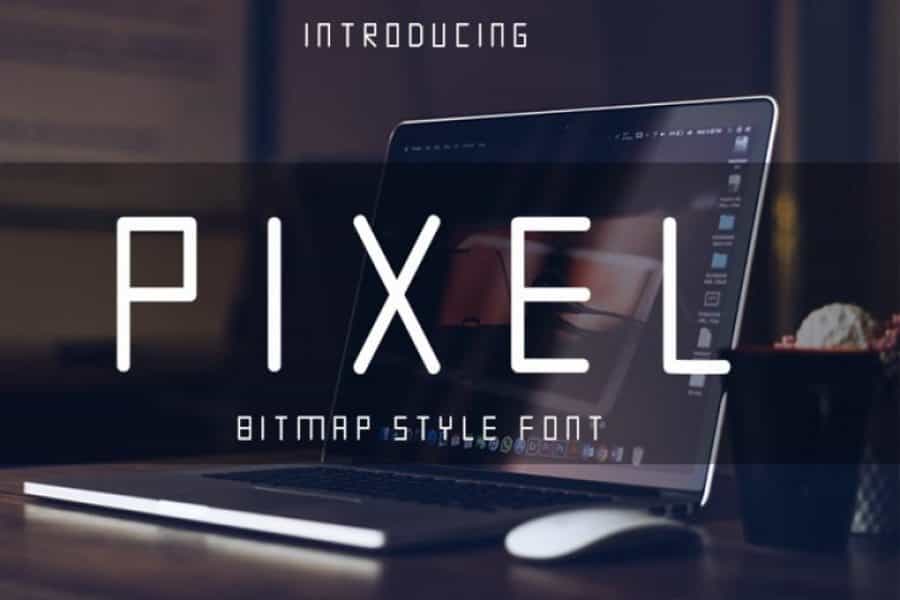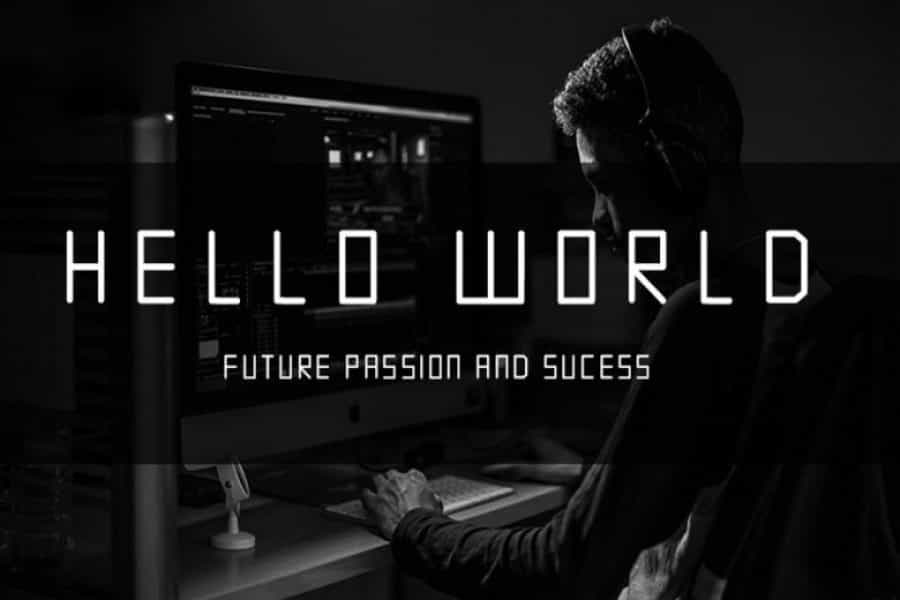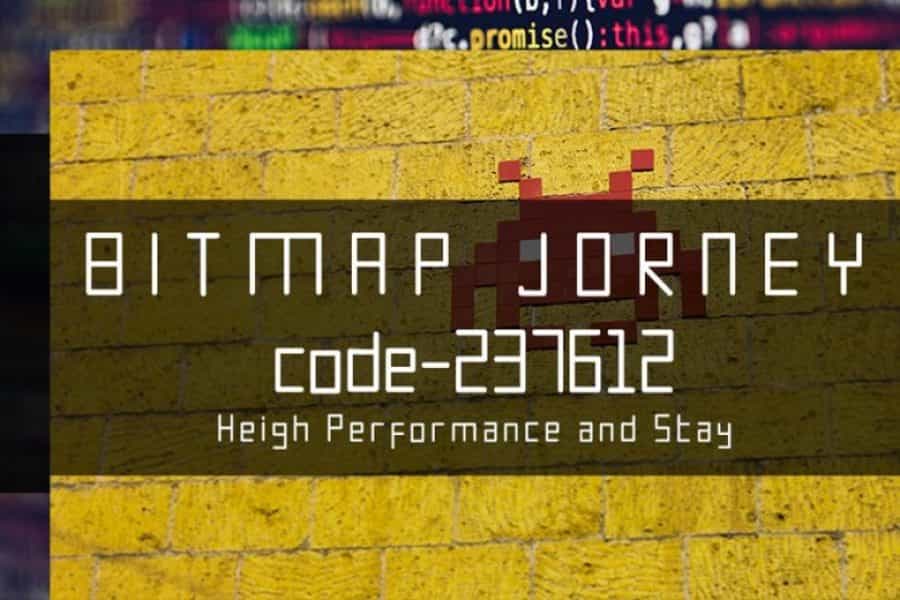
Pixel is an everyday casual typeface designed for display with an elegant feel and clean letter arrangement that would look fantastic in both formal and casual designs.